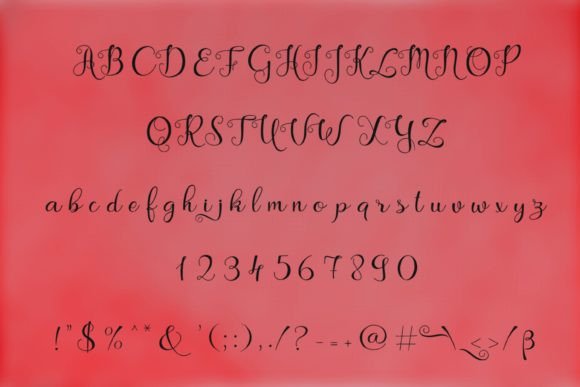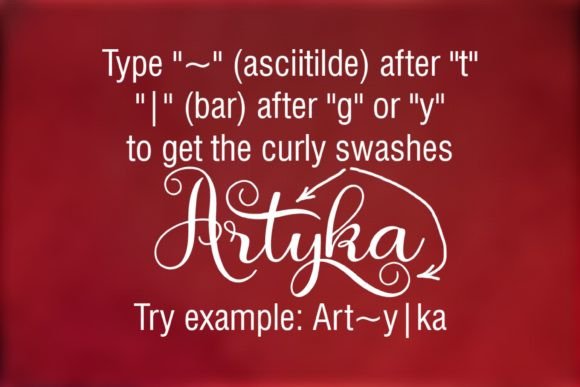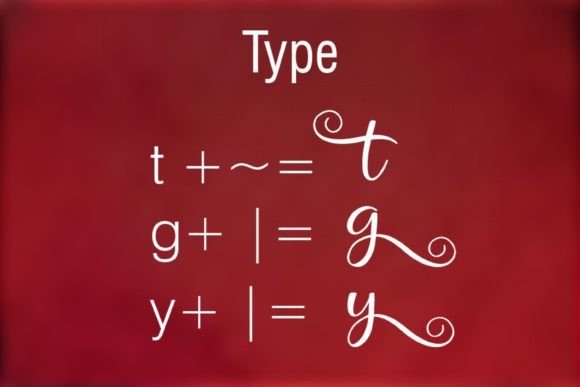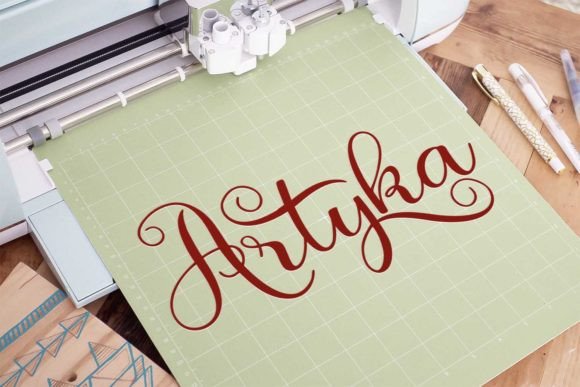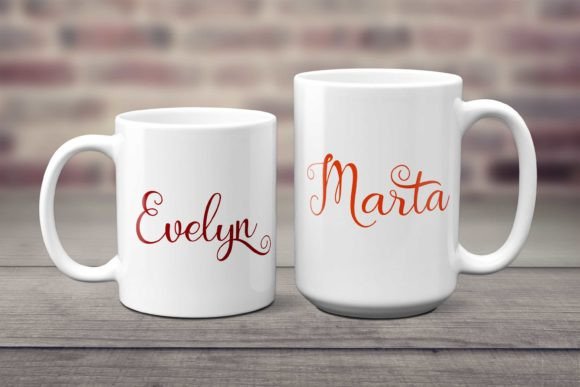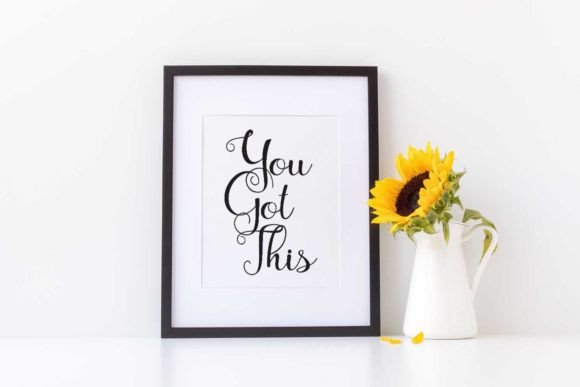
Introducing Artyka Font: The Perfect Handwritten Touch for Your Creative Projects
In the world of typography, fonts play a crucial role in bringing creative projects to life. For designers and crafters looking for a modern, trendy, and feminine touch, Artyka Font is an excellent choice. This beautiful handwritten font is designed to add a warm and romantic feel to various design projects, making it perfect for those who want to create stunning visual content.
What Makes Artyka Font Special?
Artyka Font is a modern, trendy, and feminine handwritten font that boasts many features, making it ideal for creative projects. Its unique characteristics include:
- Warm and Romantic Feel: Artyka Font exudes a sense of warmth and romance, making it perfect for projects that require a personal touch.
- Handwritten Touch: The font’s handwritten style adds a touch of elegance and sophistication to any design project.
- Versatility: Artyka Font can be used for a wide range of projects, including wedding invitations, thank you cards, quotes, greeting cards, logos, business cards, and more.
Wedding invitations, thank you cards, and other event-related designs require a special touch. Artyka Font is perfect for these types of projects, as it adds a romantic and elegant feel to the design. Whether you’re a designer or a crafty person, this font will help you create stunning visual content that will leave a lasting impression.
Great for Quote and Greeting Card Designs
Artyka Font is also great for quote and greeting card designs. The font’s handwritten style and warm feel make it perfect for adding a personal touch to inspirational quotes, birthday messages, and other types of greetings.
Excellent for Logo and Branding Designs
For designers and business owners looking for a unique and elegant font for their logo and branding designs, Artyka Font is an excellent choice. The font’s modern and trendy style will help you create a stunning visual identity for your brand.
Why Choose Artyka Font?
There are many reasons why designers and crafters should choose Artyka Font for their creative projects. Here are a few:
- Unique and Elegant: Artyka Font is a unique and elegant handwritten font that will add a touch of sophistication to any design project.
- Easy to Read: The font is easy to read, making it perfect for body text and headings.
- Highly Versatile: Artyka Font can be used for a wide range of projects, from wedding invitations to logo designs.
Tips for Using Artyka Font
Here are some tips for using Artyka Font in your design projects:
- Pair it with Other Fonts: Artyka Font can be paired with other fonts to create a unique and interesting contrast.
- Experiment with Colors: The font looks great in various colors, so don’t be afraid to experiment and find the perfect color scheme for your project.
- Use it for Headings and Titles: Artyka Font is perfect for headings and titles, as it adds a touch of elegance and sophistication to the design.
In conclusion, Artyka Font is a beautiful and elegant handwritten font that is perfect for designers and crafters looking for a modern, trendy, and feminine touch. Its warm and romantic feel, versatility, and ease of use make it an excellent choice for a wide range of creative projects. Whether you’re designing wedding invitations, quotes, logos, or business cards, Artyka Font is sure to bring a touch of sophistication and elegance to your designs.